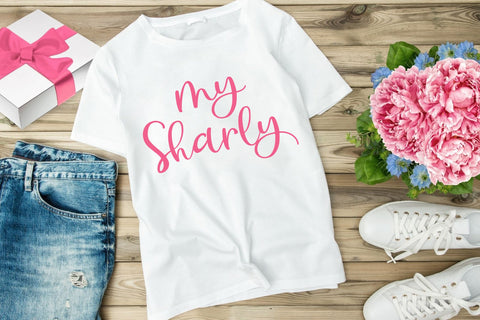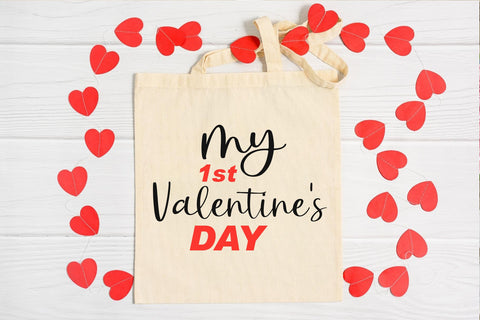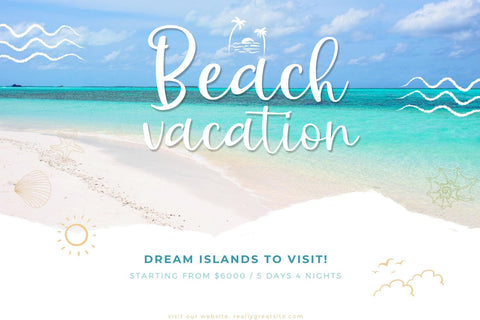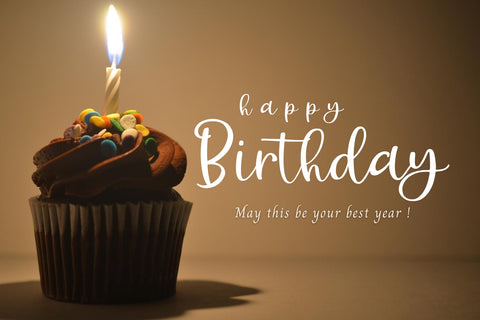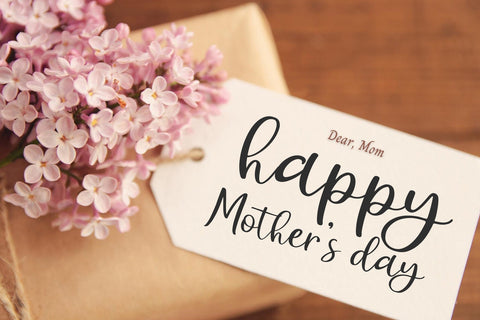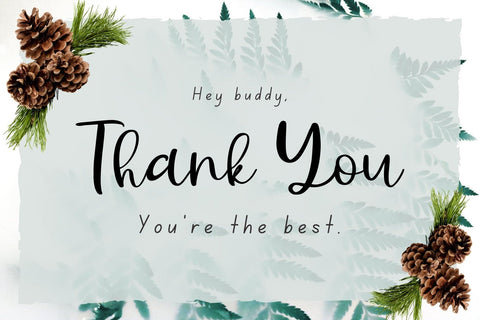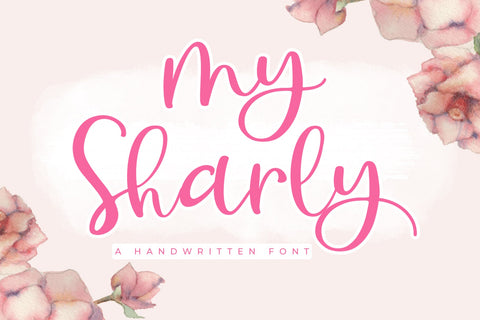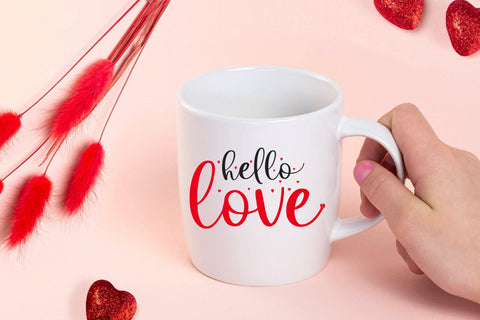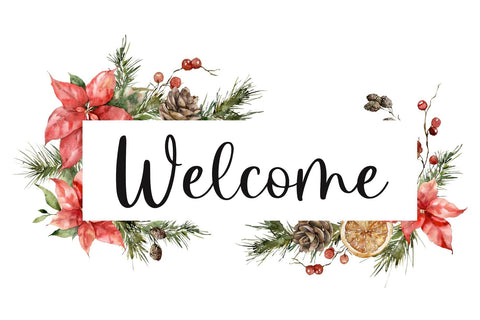
My Sharly Font
My Sharly is a relaxed script font, featuring a delicate flow. It is PUA encoded which means you can access all of the glyphs and swashes with ease! Add it confidently to your projects, and you will love the results.